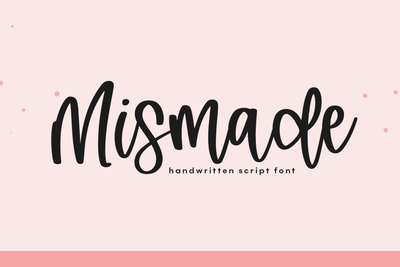
Mismade - Modern Handwritten Script Font
Mismade is a handwritten script font perfect for all of your farmhouse designs, shirts, branding, invitations svg designs and more!